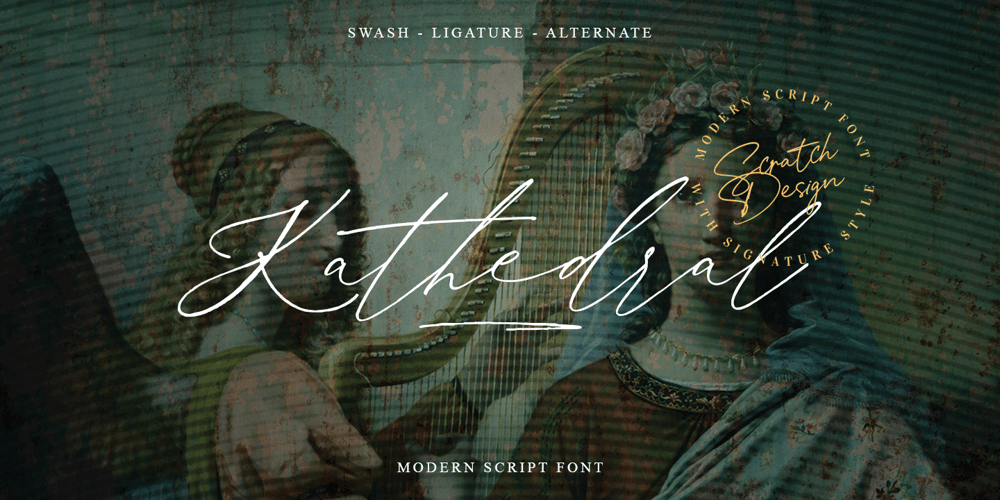
Kathedral
Kathedral font
Kathedral Font Family was designed by Gitayogi Irhandi and published by Scratch Design. Kathedral contains 1 styles and family package options. Please welcome, Kathedral! Kathedral is a stylish signature script font that will give instant and gorgeous flair to your designs. This font is highly detailed and has a beautiful shape. It will give you vintage, dazzling and memorable vibes in your design. All lowercase letters include beginning and ending swashes, giving a realistic and beautiful hand-lettered style. This font will be perfect for wedding cards, invitations, branding, wine industry branding, posters, magazines, logos and many more.What you’ll get : Uppercase and lowercase Numbers & punctuation Multilingual support Alternates for Uppercase and lowercase (with swashes) Ligatures Line Swashes Thank you for your purchase!Hope you enjoy our font!